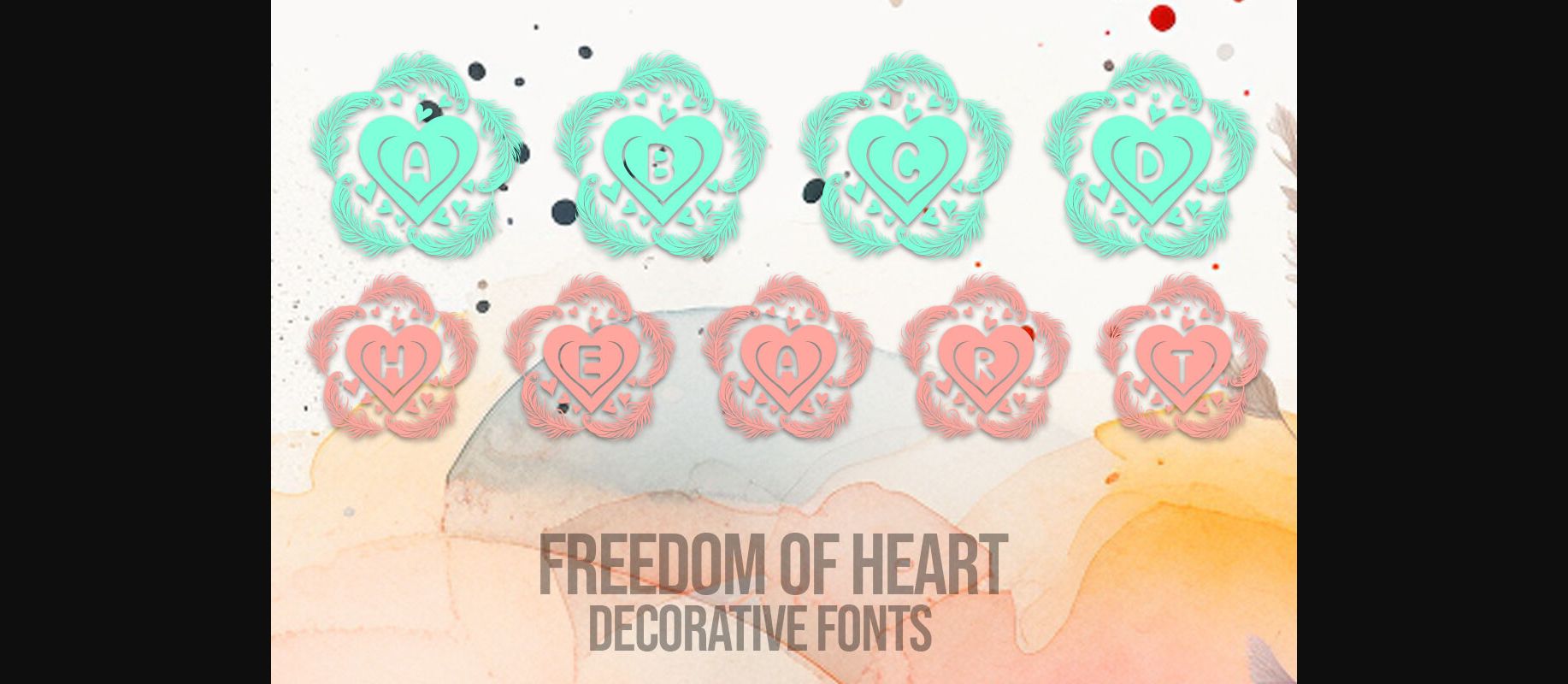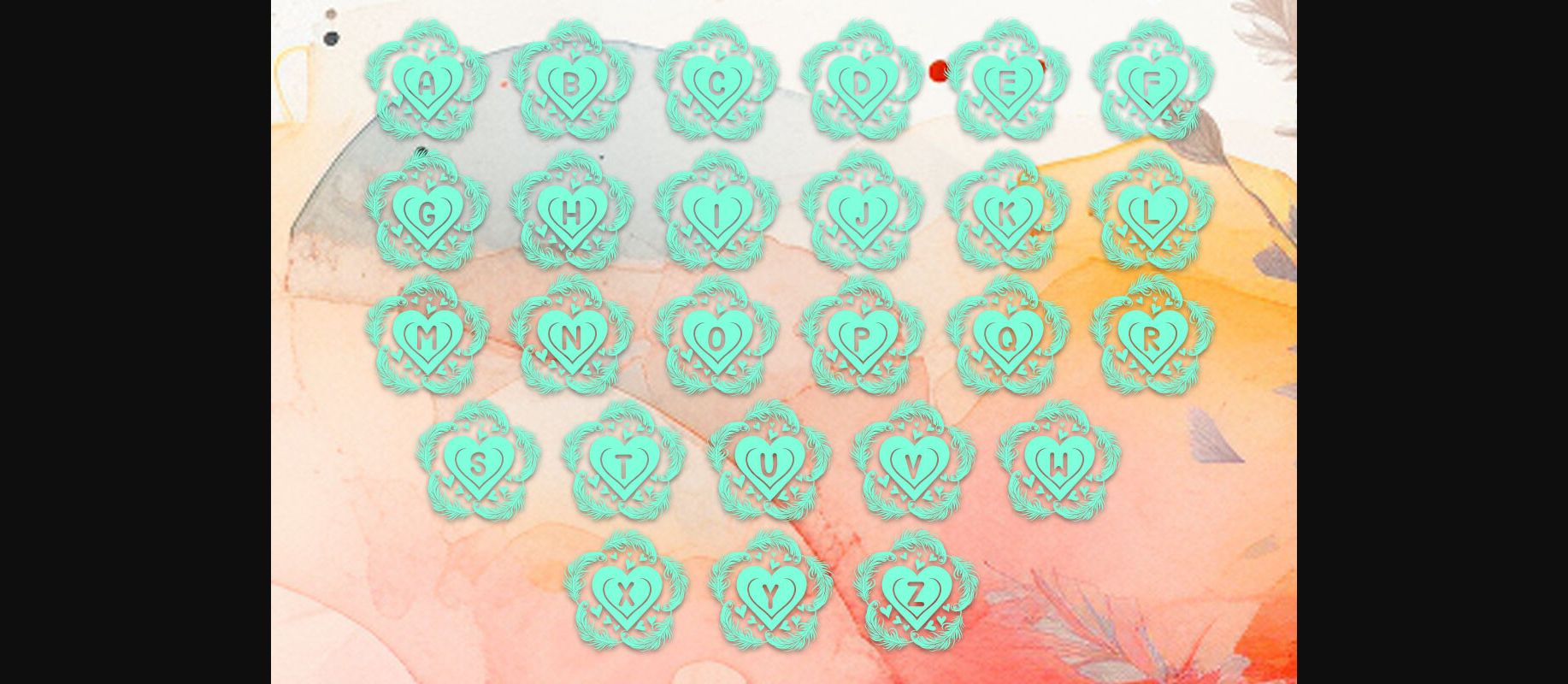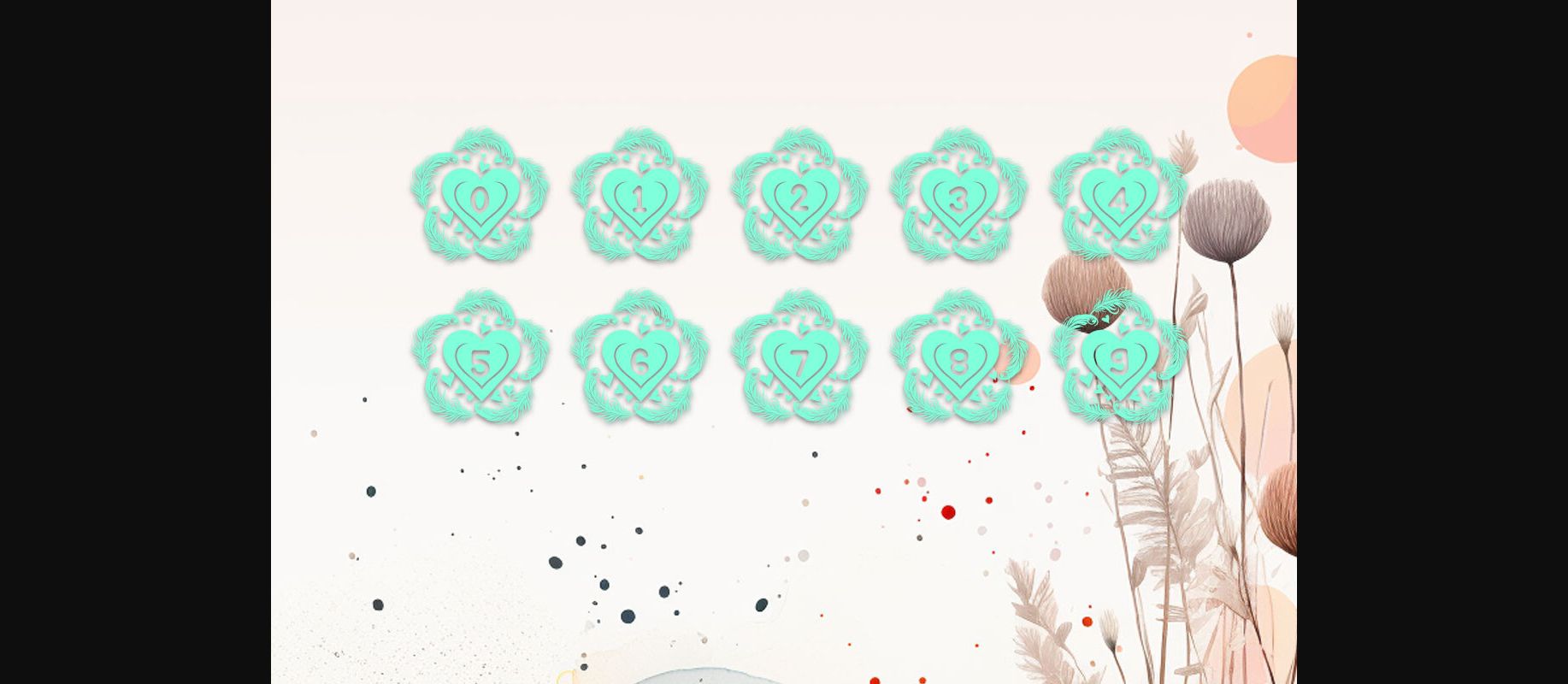
Freedom of Heart Font
About Freedom of Heart Font
Introducing our ‘Freedom of Heart Decorative Fonts’—a captivating collection embodying 36 meticulously designed characters, including 26 uppercase , alongside a set of numbers 0-9. Each character is an artistic expression showcasing a heart surrounded by delicate feathers, symbolizing the liberation of emotion and creativity. Perfect for digital artistry, invitations, or designs seeking to evoke a sense of freedom and heartfelt expression. Let these fonts be your creative vessel, infusing projects with the lightness of feathers and the depth of emotion